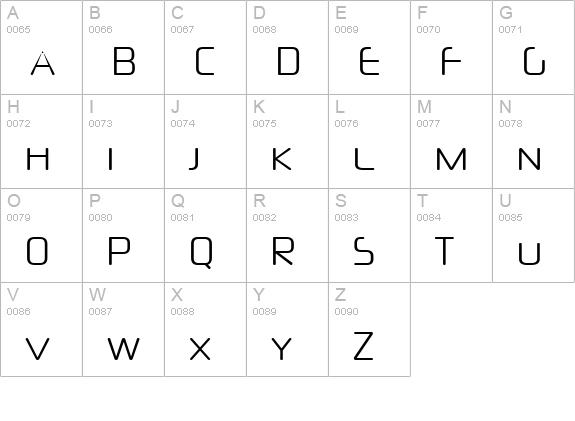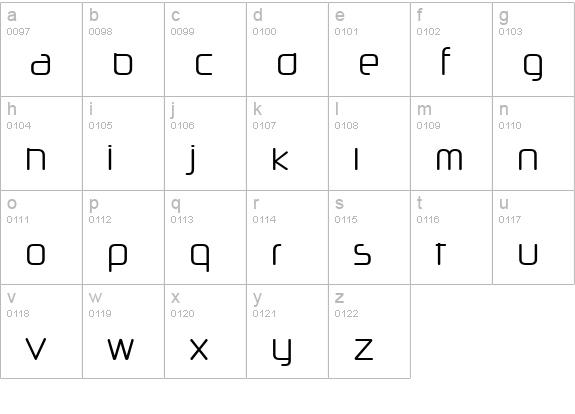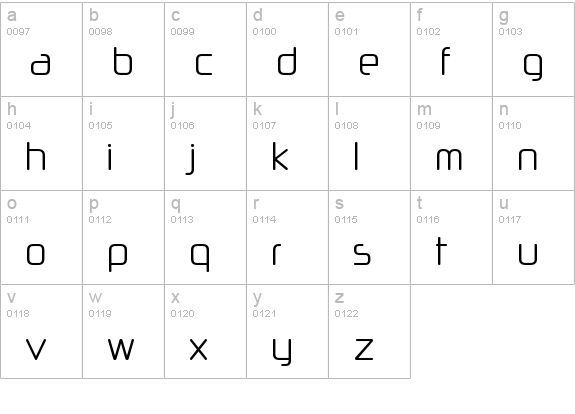
Neuropol X Cnd Lite Font Details
Neuropol X Cnd Lite font is a futuristic and sleek typeface that embodies the essence of modernity and innovation. With its clean lines and geometric shapes, this font exudes a sense of technology and sophistication. Perfect for projects that require a contemporary and cutting-edge look, Neuropol X Cnd Lite font is versatile and eye-catching. The best part? Neuropol X Cnd Lite font is available for free download at FontsMarket.com. Now you can easily access this stunning font and elevate your designs without any cost. Don't miss out on the opportunity to enhance your projects with the dynamic charm of Neuropol X Cnd Lite font. Download it now and let your creativity soar!